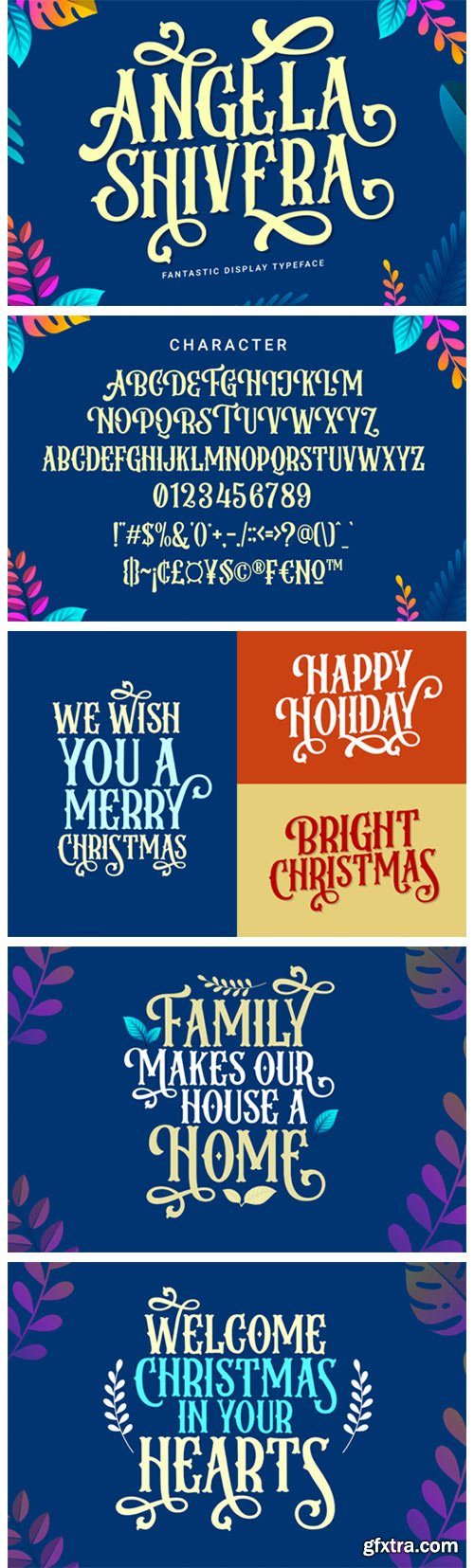
Angela Shivera Font
Angela Shivera is a gorgeous and stylish display font. It is PUA encoded which means you can access all of the glyphs and swashes with ease! Add it confidently to your favorite creations and let yourself be amazed by the outcome generated.